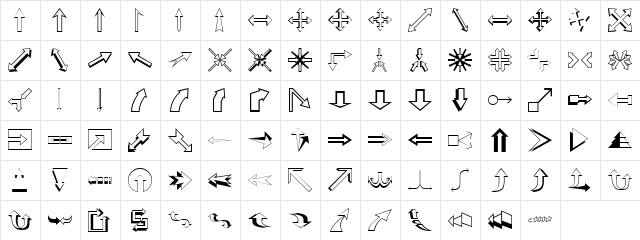
Carr Arrows (outline) Regular
Design Context for Carr Arrows (outline) Typeface
Carr Arrows (outline) brings ornamental detail and strong personality to headlines and identities, where visual impact matters more than quiet functionality.
Font Pairing: Pair with a clean neutral sans-serif for body copy to let Carr Arrows (outline)'s character lead without overwhelming the composition.
Pro Tip: Use Carr Arrows (outline) exclusively at display sizes — it was designed to be seen, not read at length. Let a neutral companion handle body copy.